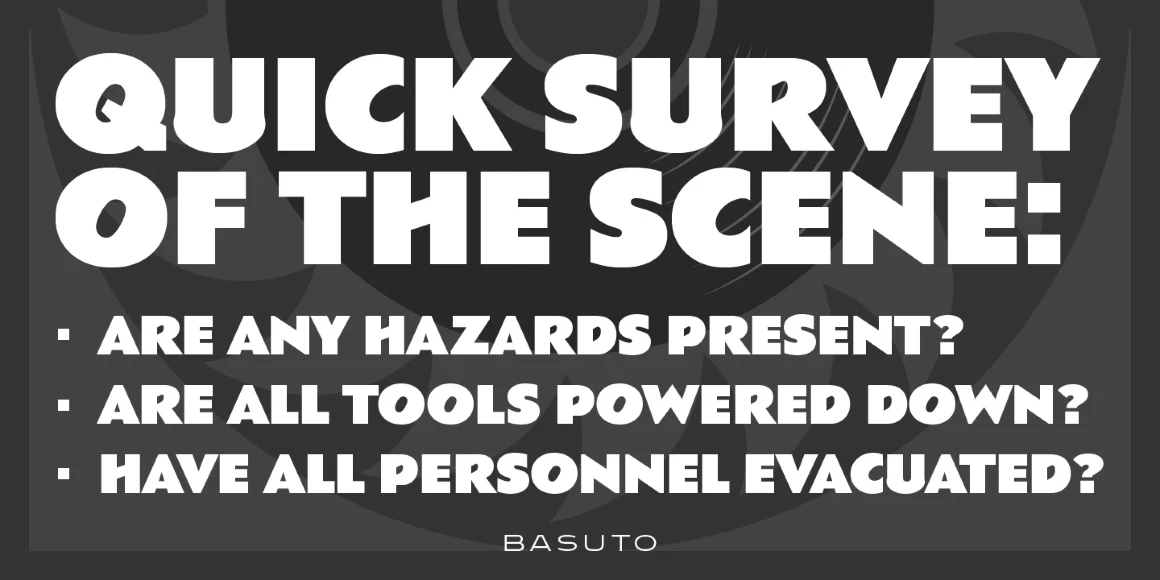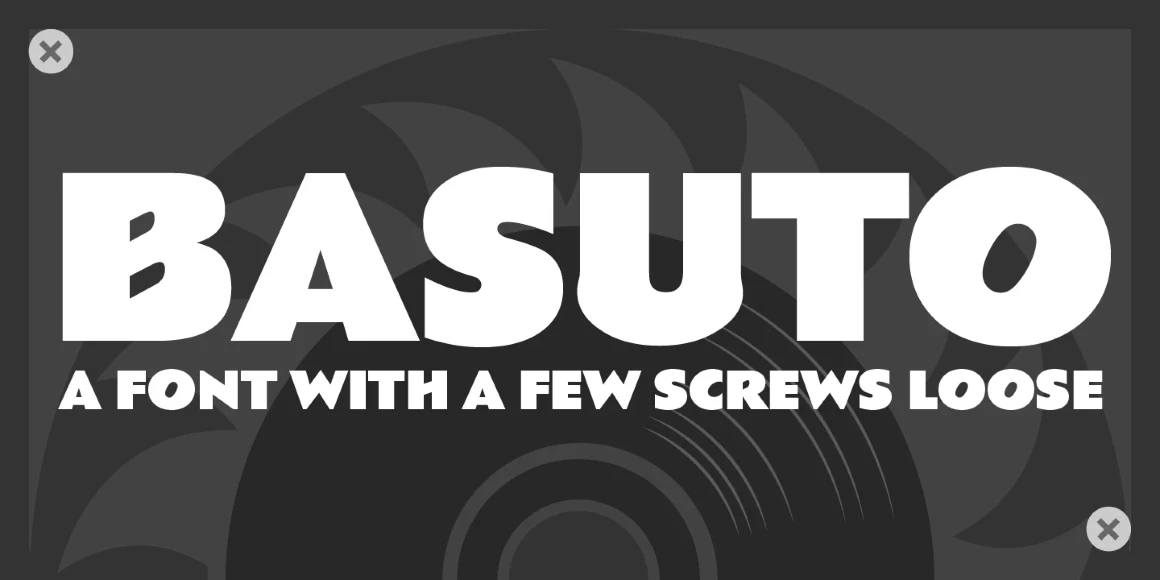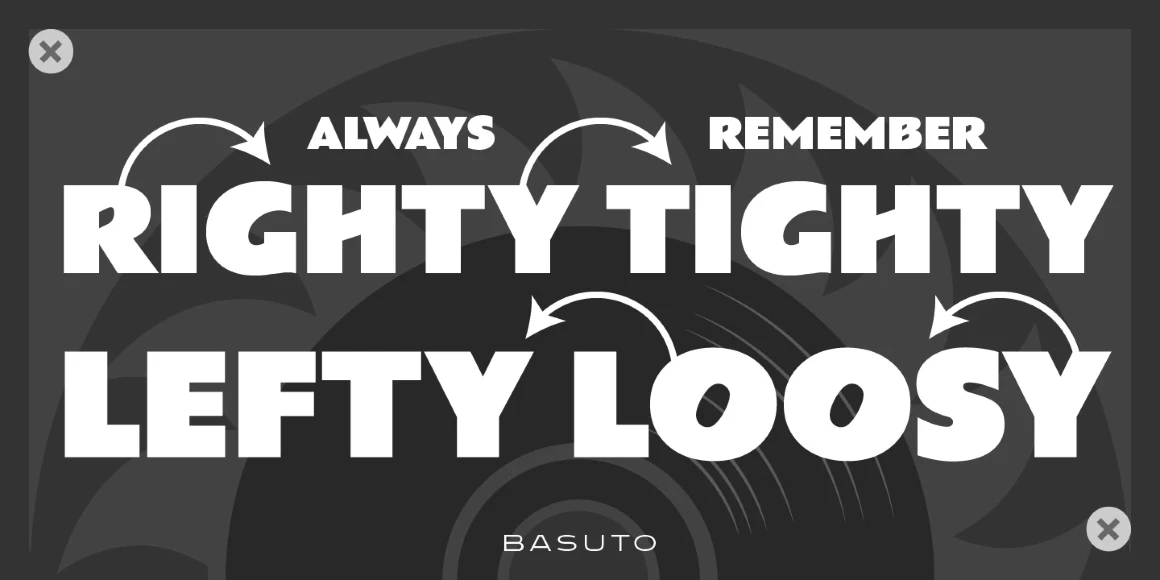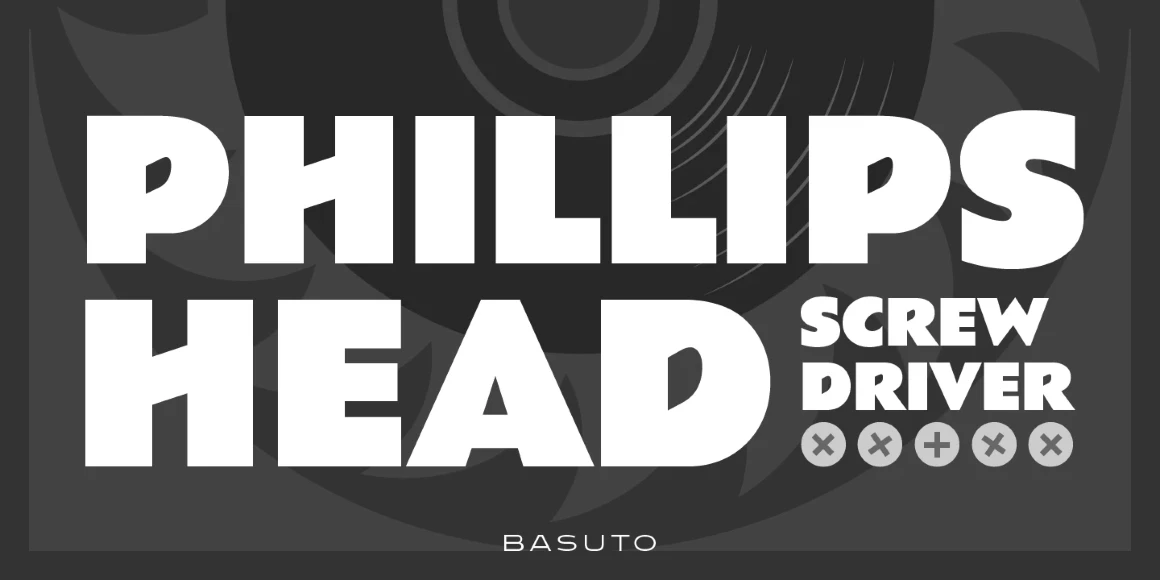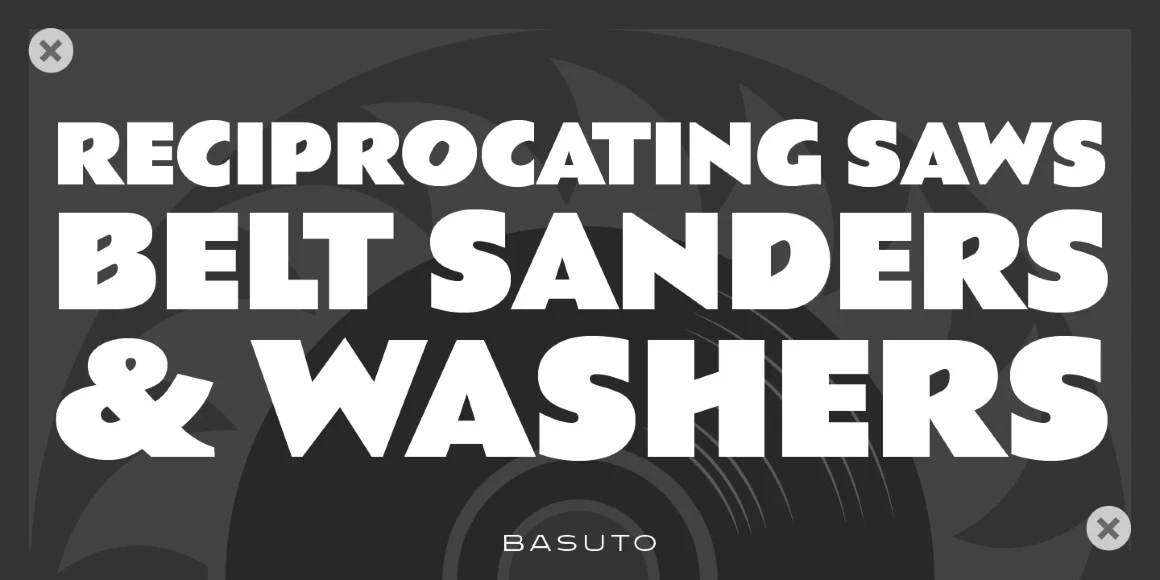
Basuto
Basuto Regular
Circa 1927, Basuto is a decorative sans serif typeface exclusively licensed from the Stephenson Blake Collection. Basuto’s digital letterforms were manufactured by Paul Hickson (P&P Hickson) exclusively for the Red Rooster Collection, and its full commercial version was produced by Steve Jackaman (ITF) in 1997. Basuto is an unusual yet highly legible typeface with upturned counters and crossbars. Despite its age, Basuto brings a fresh face to any project.